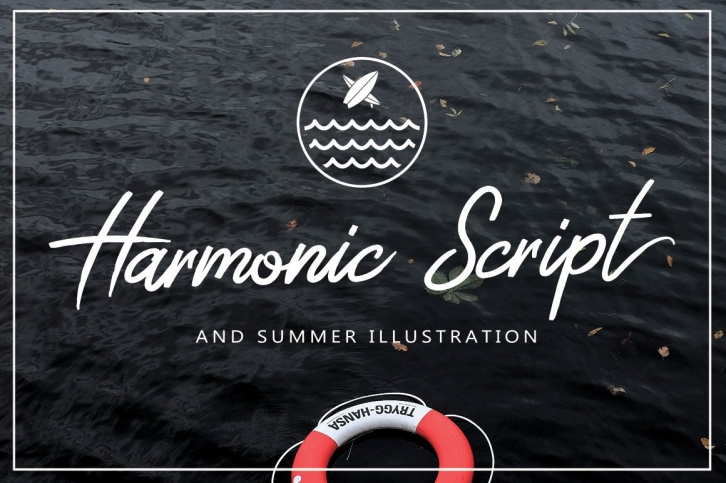
Harmonic Script is a modern bold script font. Harmonic can be used for logotype, website header, fashion design, Shop branding and much more.
Harmonic Script comes with manly elegant style, It contains a full set of lower & uppercase letters, a large range of punctuation, and numerals.